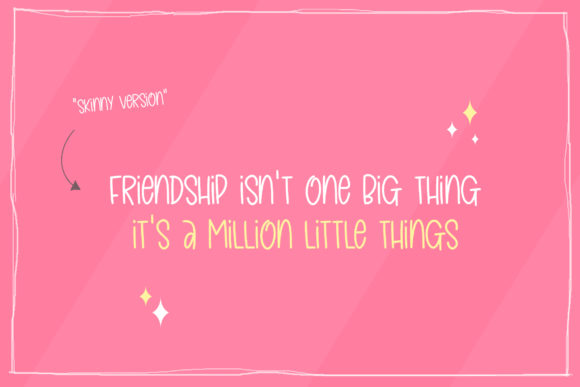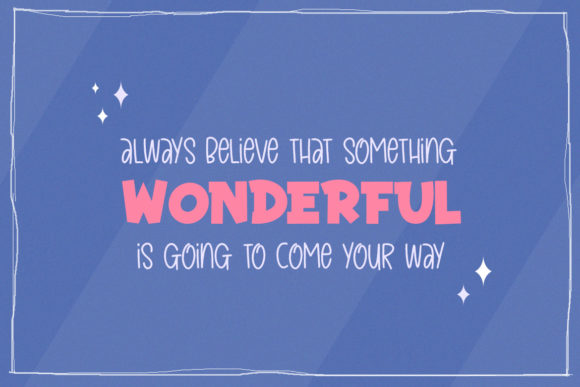
Forever Friends Duo is a quirky display font that includes a great combination of a chunky and a skinny font that can be used in combination to create a wonderful, all-in-one design!